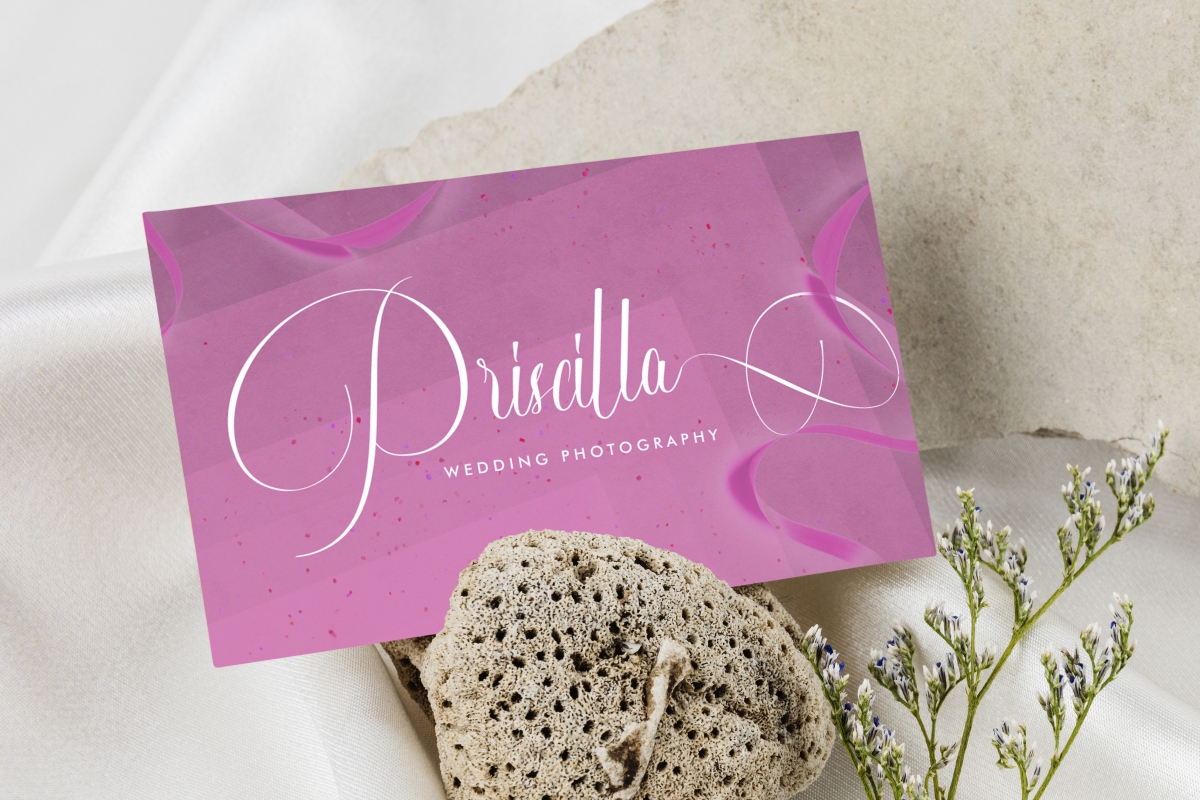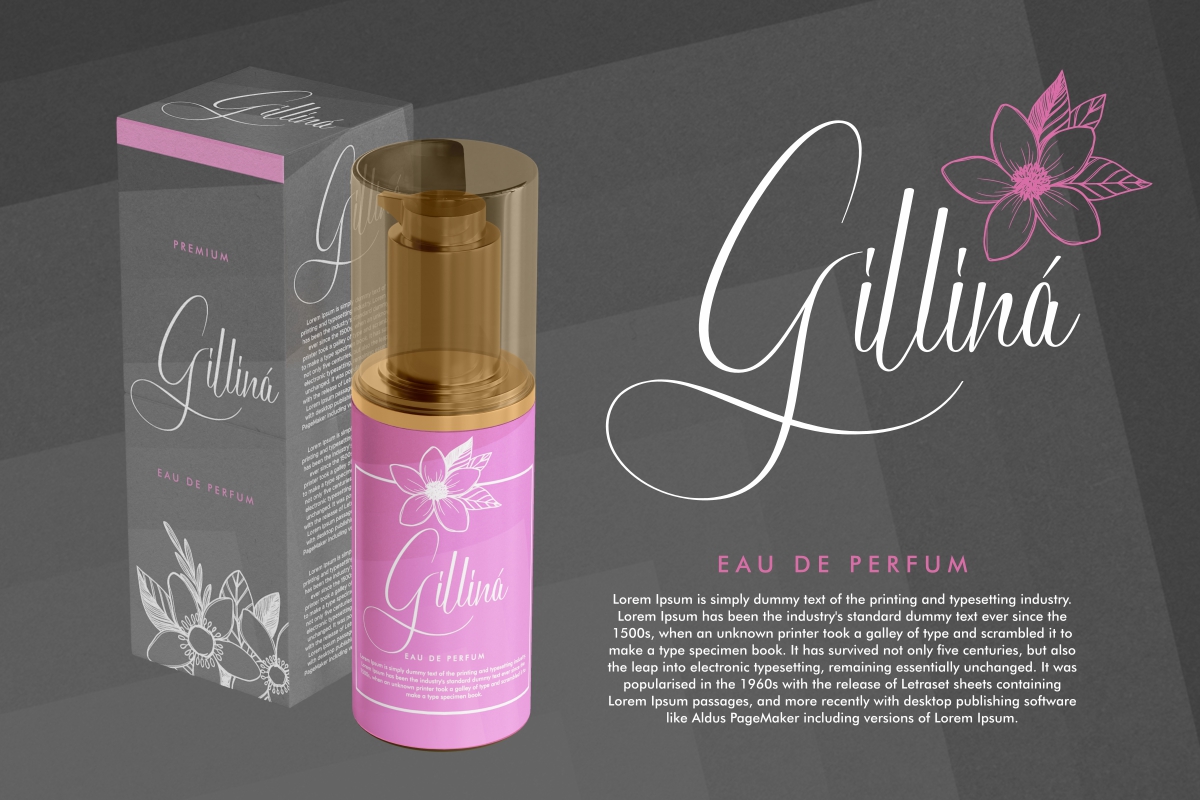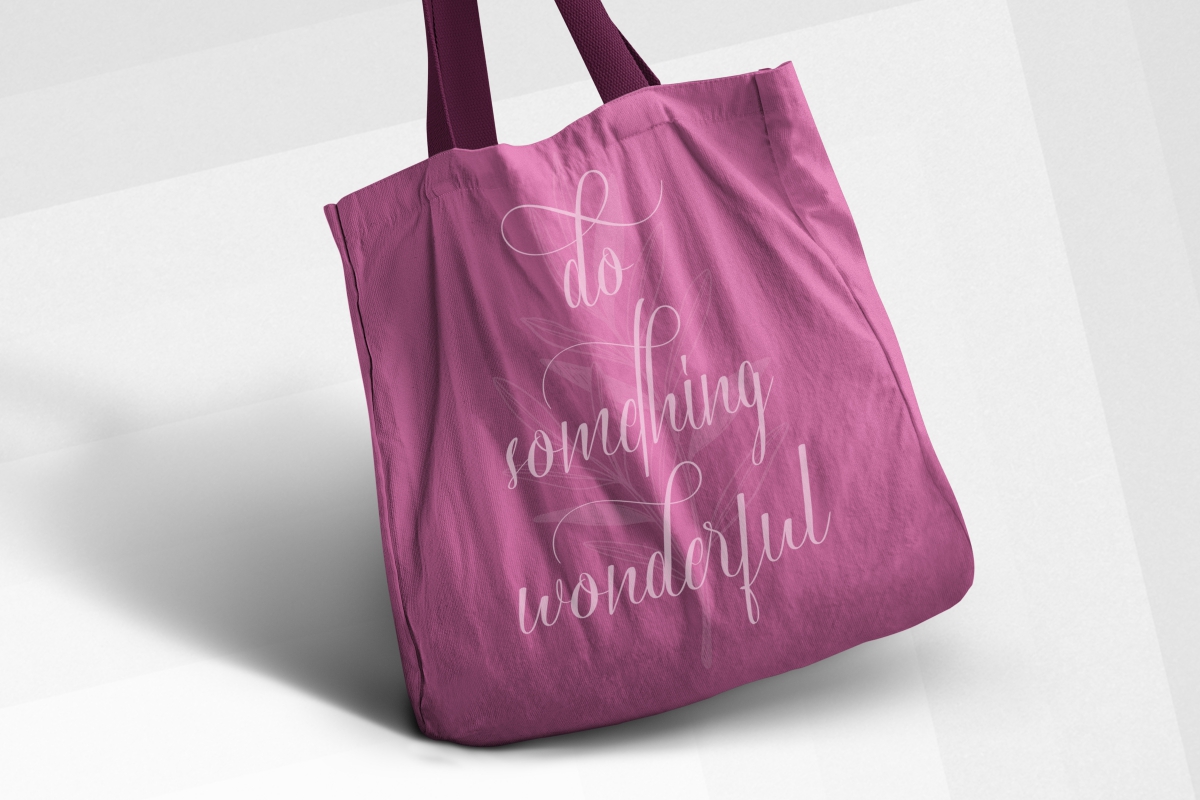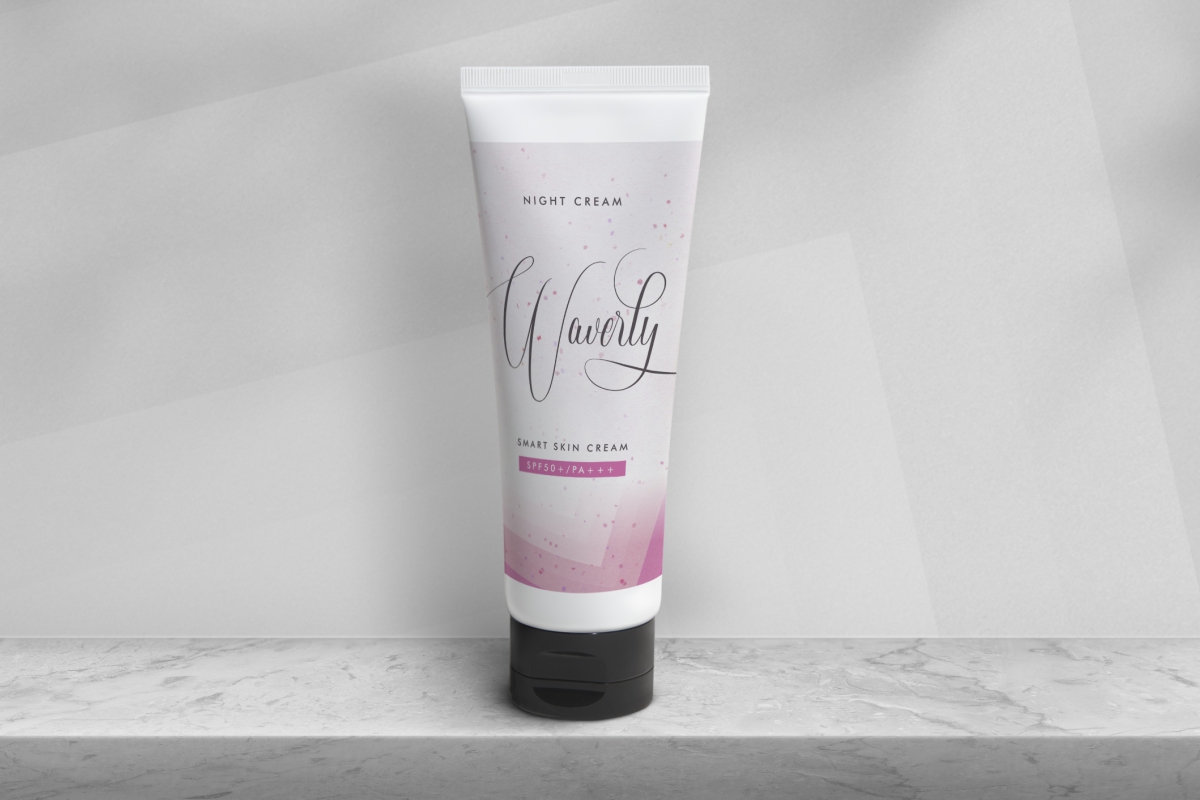
Sinta Magenta Calligraphy Font
This is a stunning calligraphic font with exclusive characters style. The font will make your design looks elegant, luxurious and sophisticated in hand signature calligraphy style. The font will be great for brandings, invitation, promotions, tittles, headlines etc